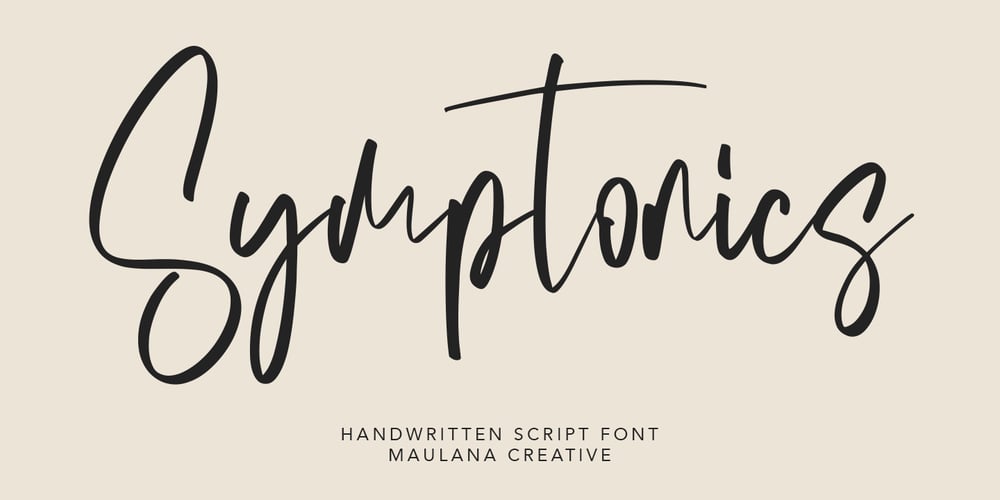
Symptonics
Symptonics font
Symptonics Font Family was designed by Gilang Maulana and published by Maulana Creative. Symptonics contains 1 styles and family package options. Give your designs an authentic brush handcrafted feel. Symptonics is perfectly suited to signature, stationery, logo, typography quotes, magazine or book cover, website header, flyer, clothing, branding, packaging design and more.Thanks for use this font. MaulanaCreative